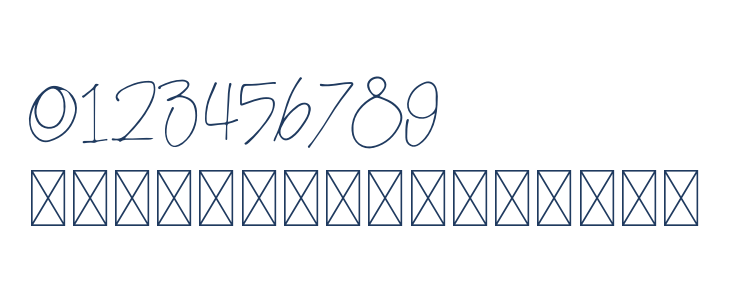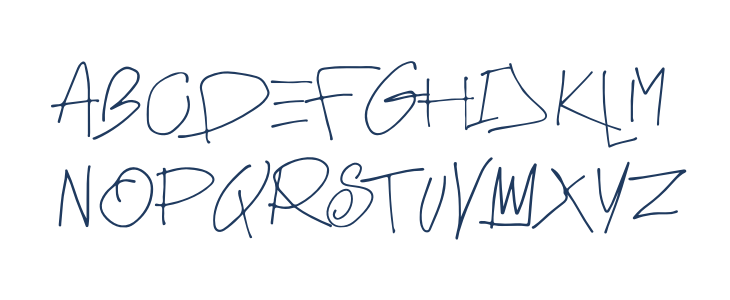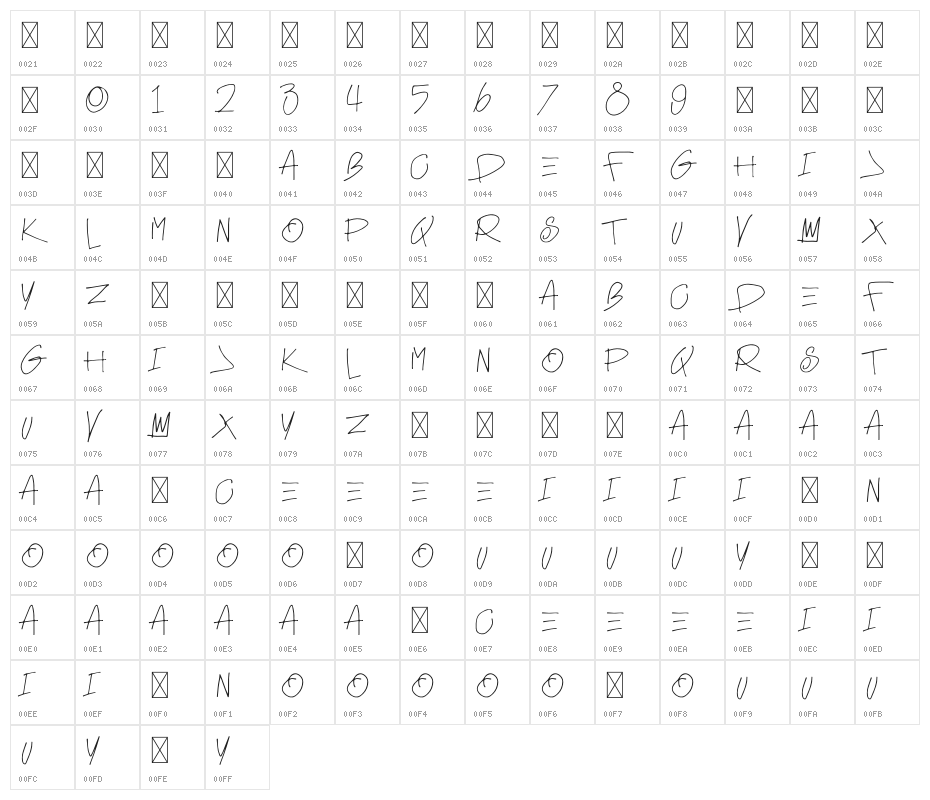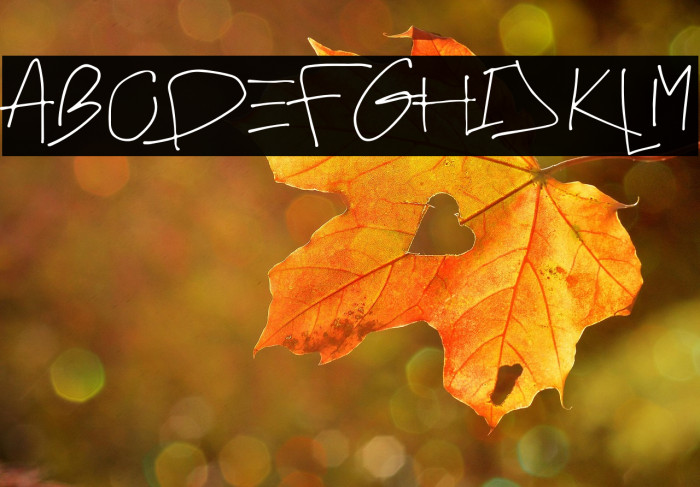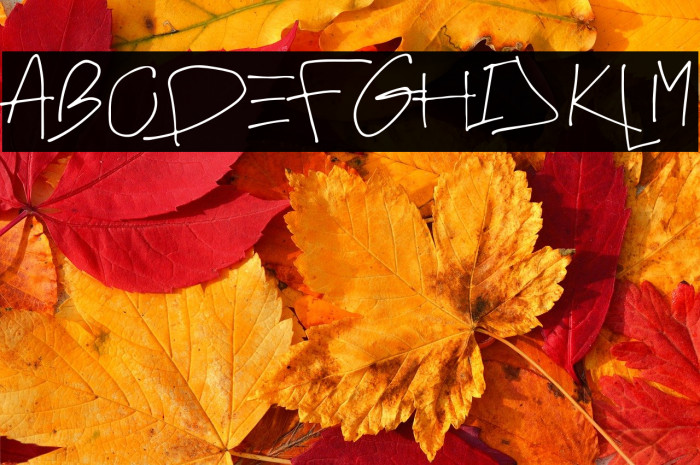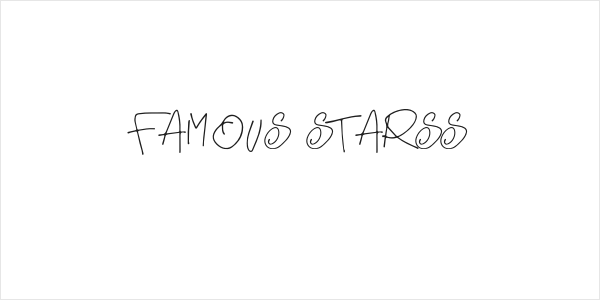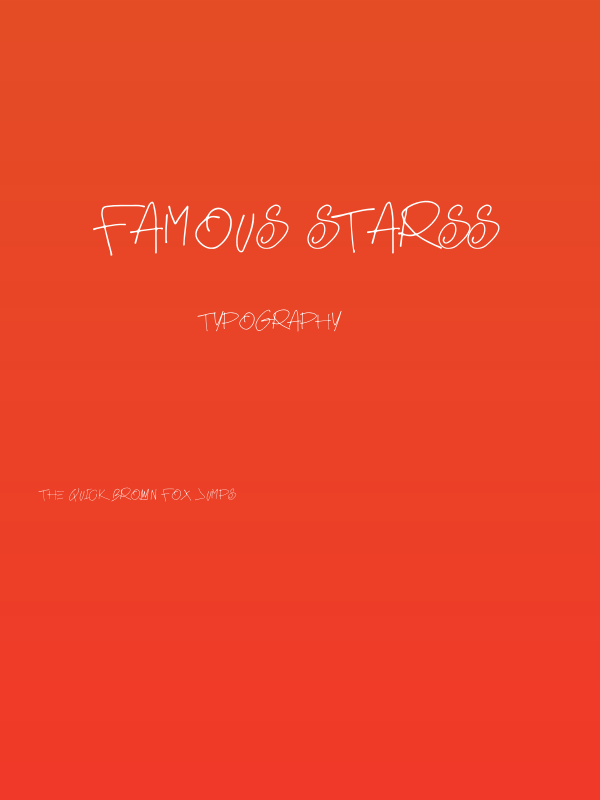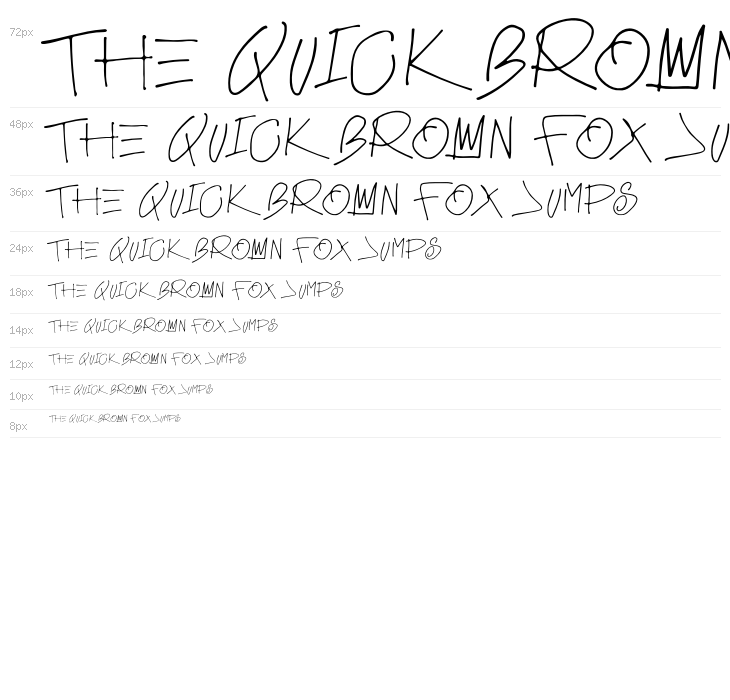
FAMOUS STARSS Font
FAMOUS STARSS Description
A playful, handwritten-style font with tall, narrow letters and irregular, sketch-like strokes. The characters have a casual, energetic feel with varying line thickness and quirky, uneven shapes.
| Width | Condensed |
| Overall Style | Playful, Casual, Decorative |
| Use Case | Headlines, Posters, Informal Branding, Creative Projects |
| Proposed Projects | Children's books, posters, informal invitations, creative branding, comic titles. |